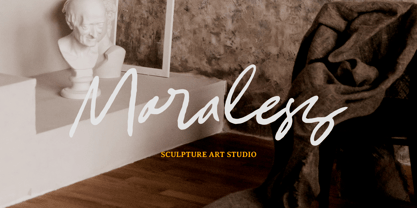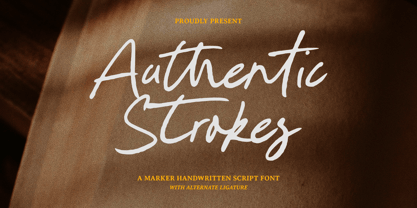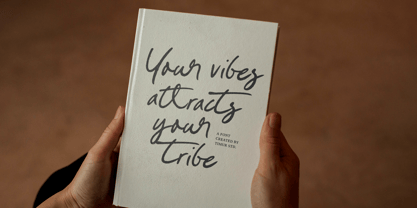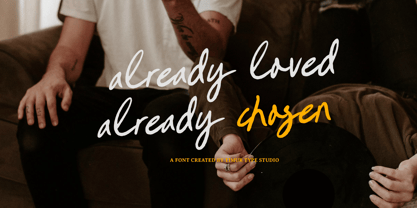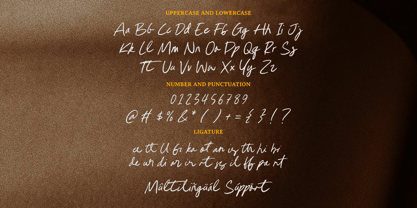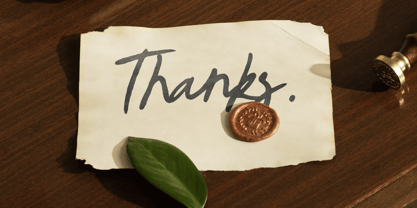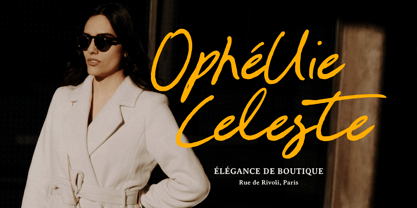
Authentic Strokes
by Timurtype
The Authentic Strokes Font Family was designed by Wara Sigit Tri Pamungkas and published by Timurtype. Authentic Strokes contains 1 styles. More about this family
Introduced by Timurtype Studio!
Authentic Strokes is a Marker Handwritten Script Font
Authentic Strokes is a lively, handwritten script font that captures the spirited energy of real marker strokes. Each character flows with natural variations in line weight and texture, evoking the spontaneity and warmth of hand‑drawn lettering. With smooth connections, subtle imperfections, and optional swashes or ligatures, it delivers an organic, human touch—perfect for branding, social media graphics, packaging, and anywhere a handcrafted vibe matters.
Authentic Strokes Font also supports multilingualism
Designers: Wara Sigit Tri Pamungkas
Foundry: Timurtype